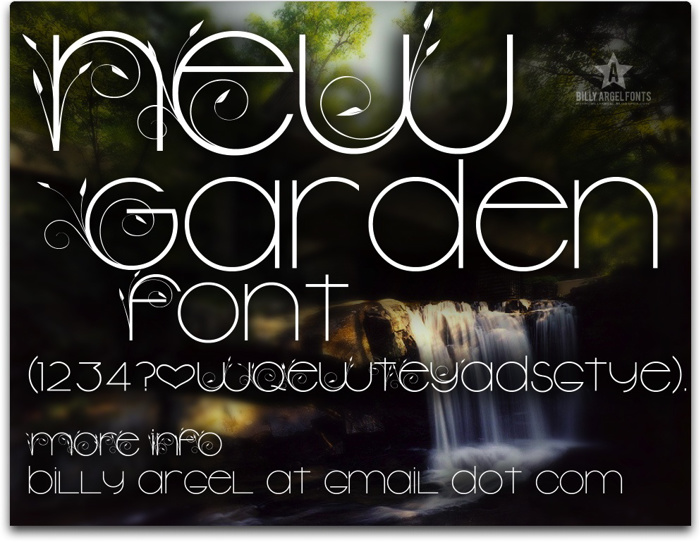
New Garden Font
New Garden   Light
girly but in a way, beast
Lovely!
Flowerific!
So fairytale-ish ?! I Love It
its awesome! 😄
wow, even NON-tat fonts you make are amazin!!!!
<3
i like this font its nice and simple
perfect
Very chic!
So amazing!
very good for enviroment lovers
I reallly like this 1 <33
this is nice!
absolutely love this
:|
soo pretty(:
Super cool font !
NICE
Wahhh! I want more swirlies! Are you saying I have to buy it for ALL of them?
@stephcarson Ugh, ikr! The font would be perf if all the letters had leaves! 😞
I wud put this under my fave list if all the letters had deco!! 😞
OMG THAT IS THE BEST LIKE EVER